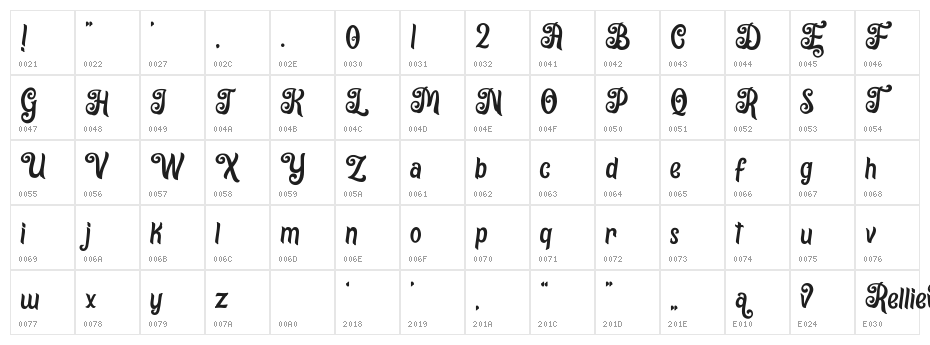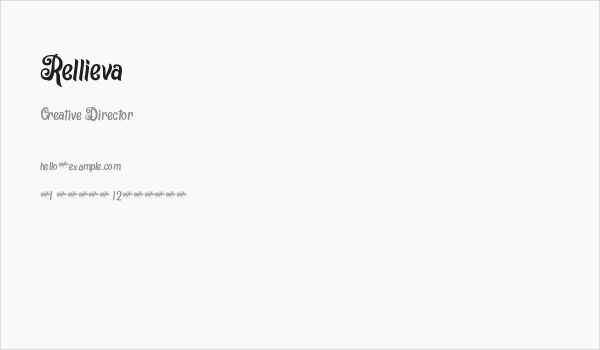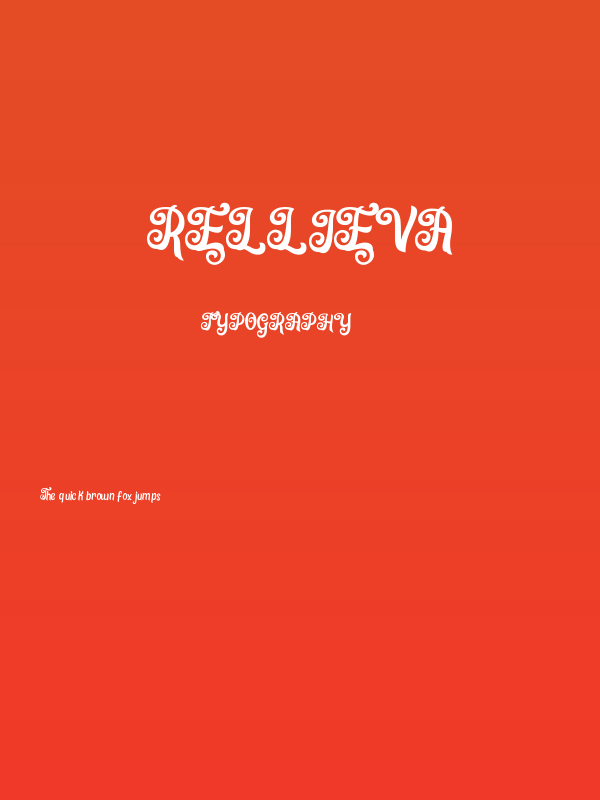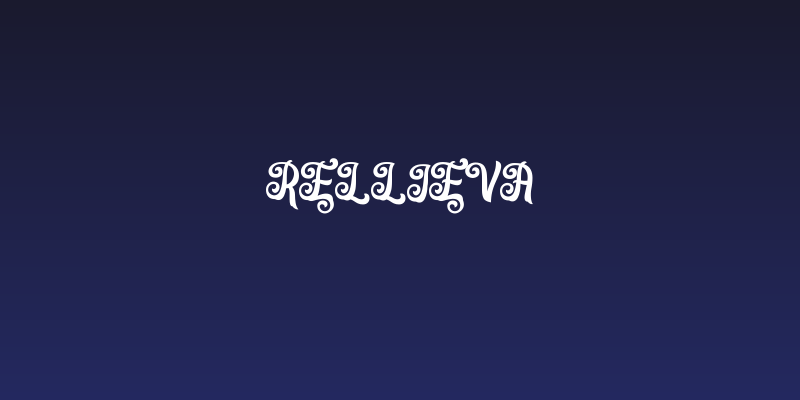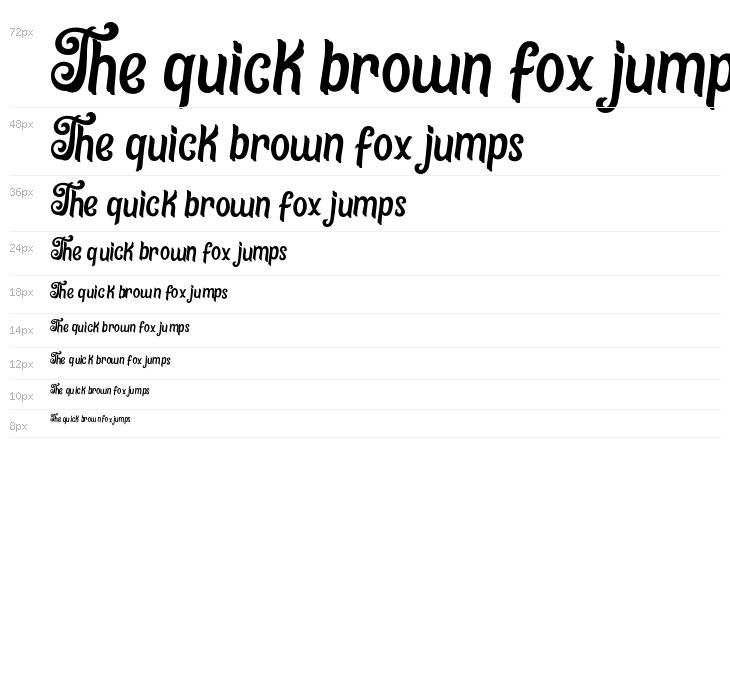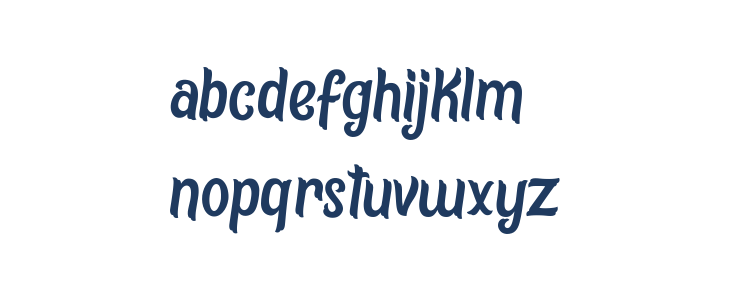
Rellieva Font
Rellieva Description
This font features a playful and decorative style with swirling, ornate elements in its uppercase letters, giving it a whimsical and artistic flair. The lowercase letters maintain a more straightforward, yet still slightly playful appearance, providing a nice contrast to the elaborate uppercase. The numbers and special characters follow the same decorative theme, making the font cohesive throughout. The overall design is bold and eye-catching, suitable for creative and fun projects that require a touch of elegance and uniqueness.
| Proposed Projects | Ideal for greeting cards, invitations, playful branding, children's books, and artistic posters. |